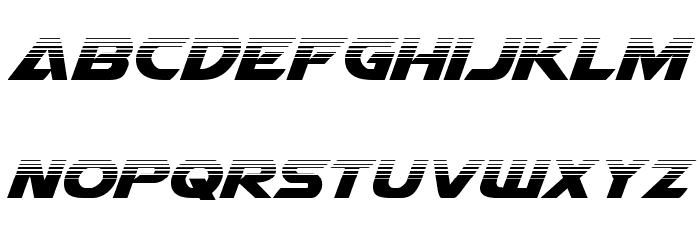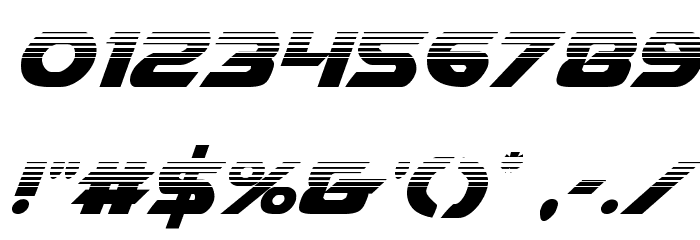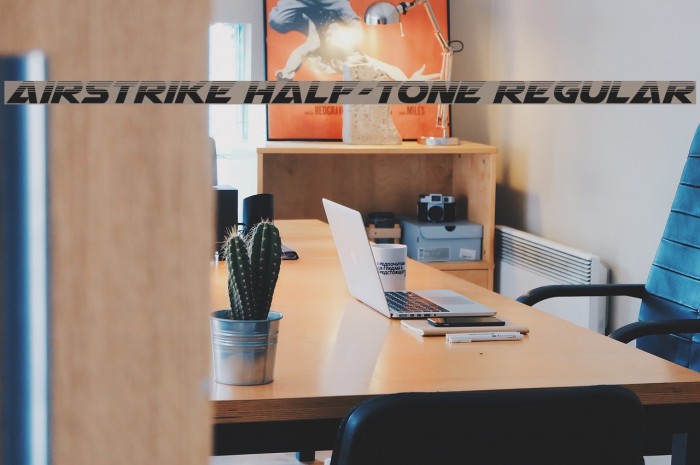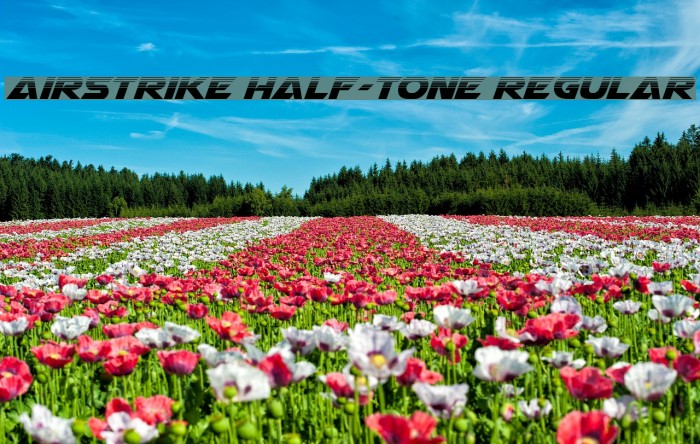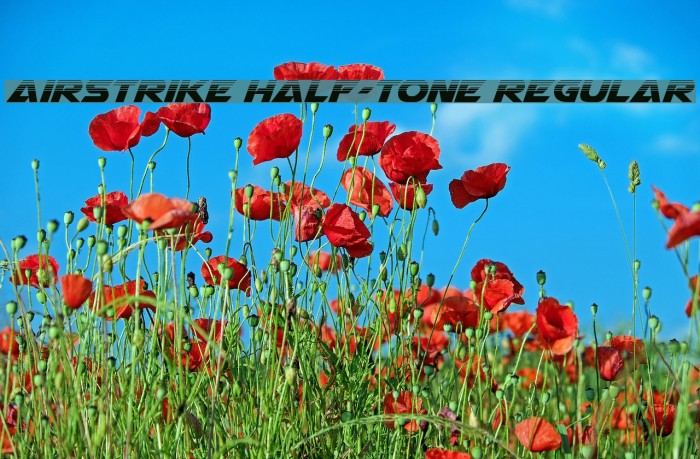
Airstrike Half-Tone Regular Font
This font features a bold and dynamic design with a distinct half-tone effect, giving it a sense of movement and energy. The uppercase and lowercase letters are designed with a slanted, italicized style, enhancing the impression of speed. The characters are wide and have a strong presence, making them suitable for impactful headlines. The numbers and special characters maintain the same energetic style, ensuring consistency across all text elements. The font's unique half-tone pattern adds a modern and futuristic touch, making it ideal for projects that require a bold and eye-catching aesthetic.
A bold, dynamic font with a half-tone effect and slanted style, perfect for energetic designs.
- Proposed Projects: Ideal for sports branding, action-themed posters, video game titles, and dynamic advertisements.
- Width: Expanded